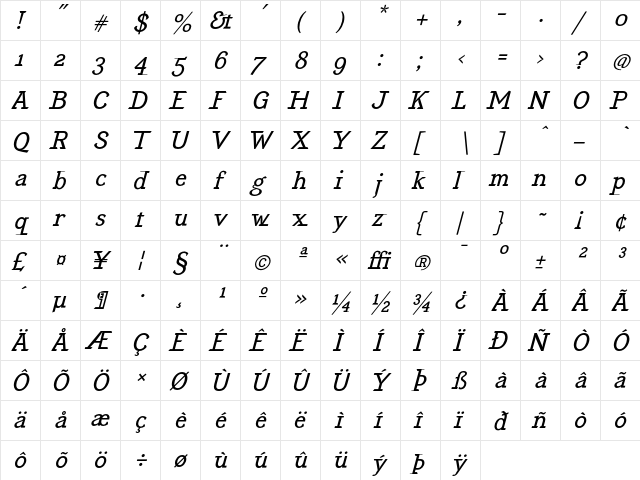
EquipoizeSerif RegularItalic
Design Context for EquipoizeSerif Typeface
EquipoizeSerif carries the refined structure of traditional serif typography, with bracketed terminals and considered proportions that communicate credibility and craft. The dynamic lean of this cut emphasises speed and emphasis in any layout.